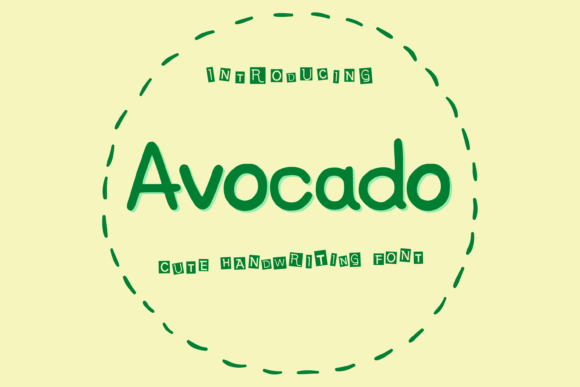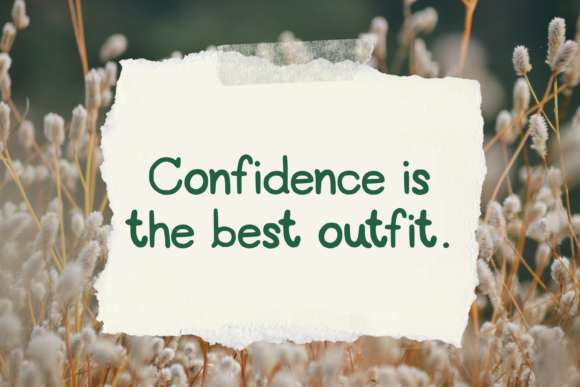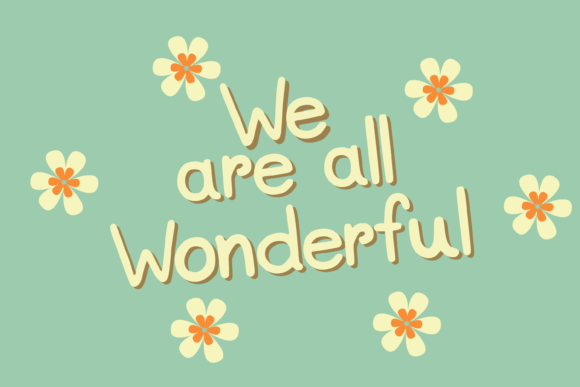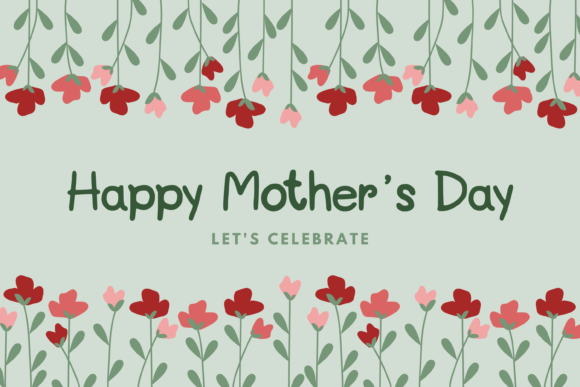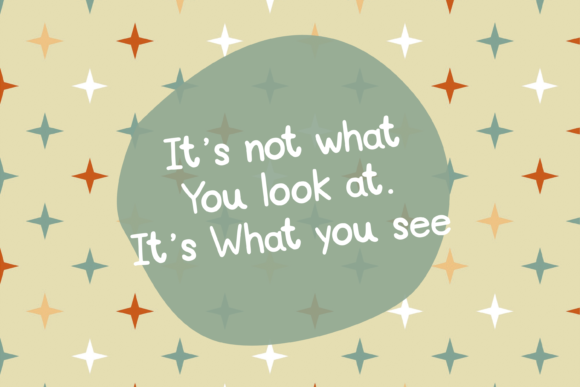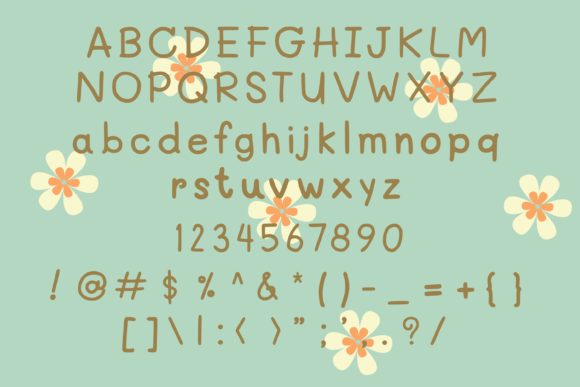
Avocado Font
About Avocado Font
Avocado is a cute handwriting font. You can use it for cards, stickers, or t-shirt designs. Or you can use it as an everyday font. The only limit is your imagination!